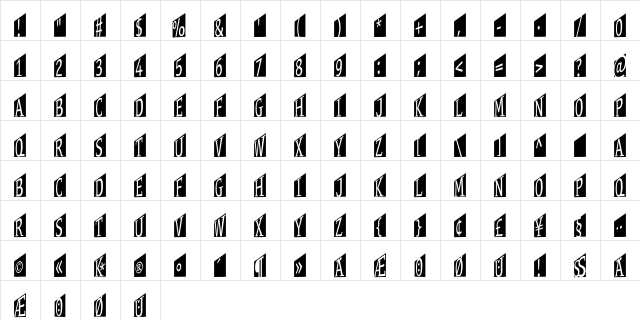
StageGlyphsTwo Regular Font Preview
StageGlyphsTwo Regular
Design Context for StageGlyphsTwo Typeface
StageGlyphsTwo is a composed and adaptable typeface that performs quietly and consistently across a wide range of design contexts.